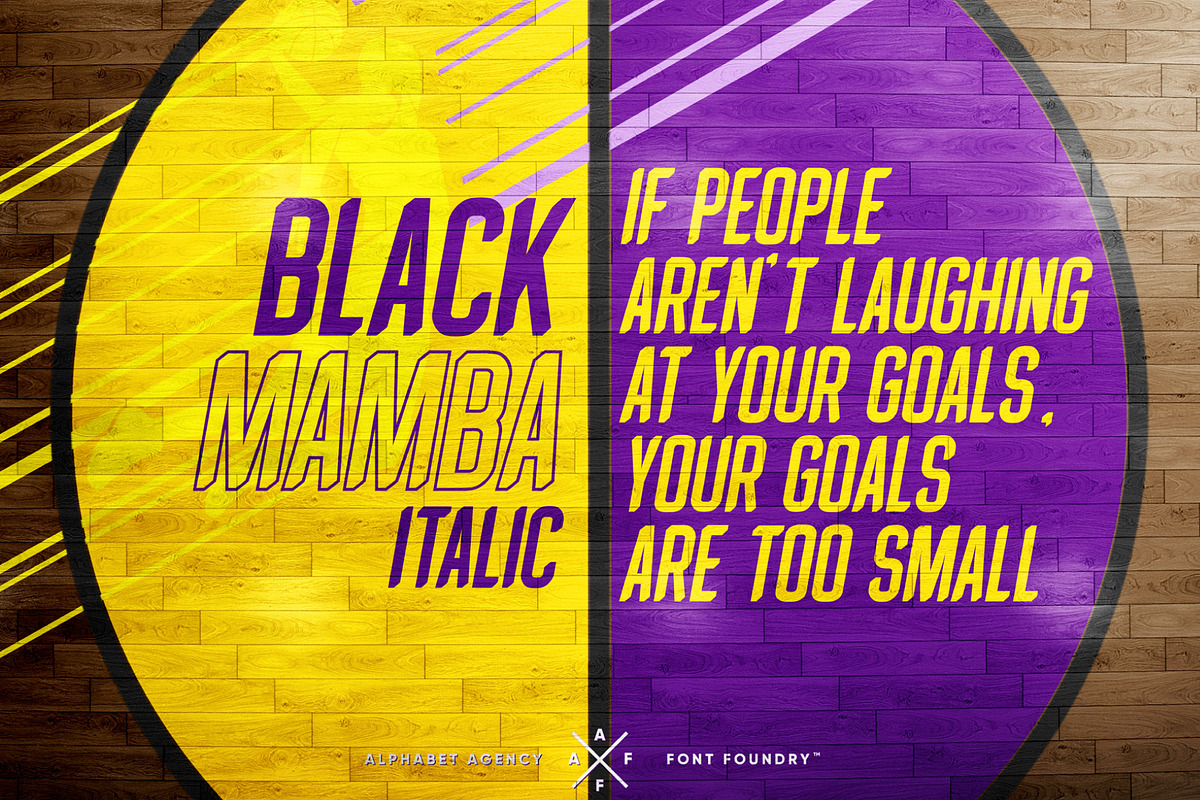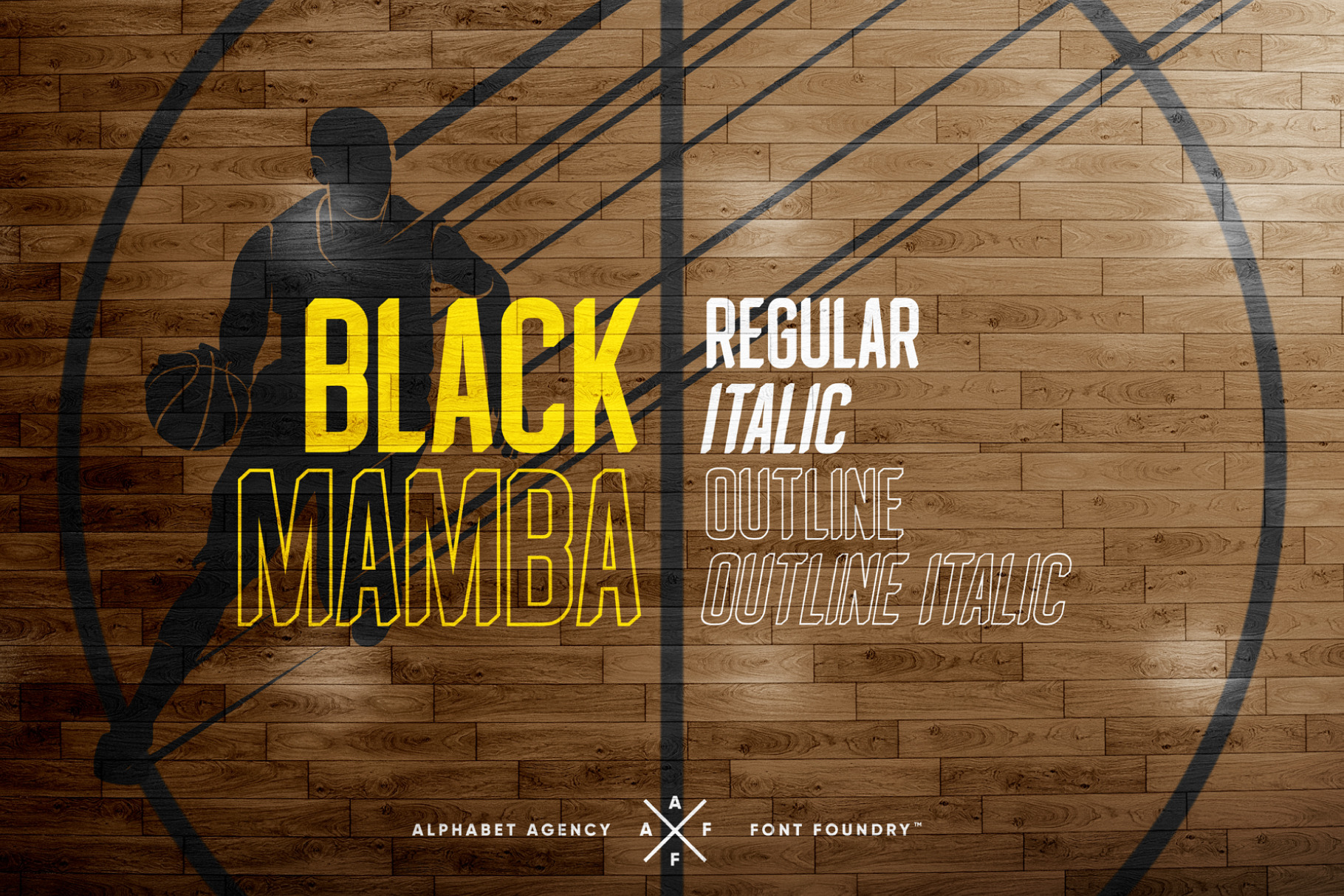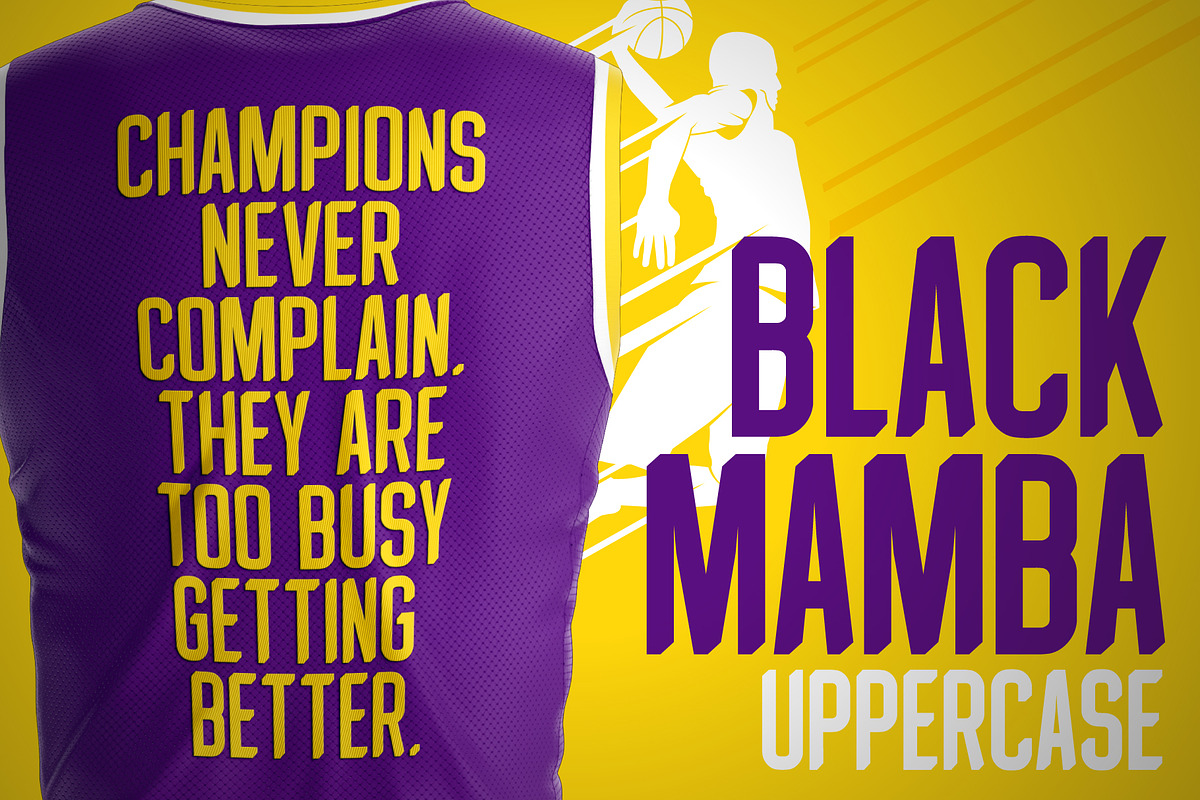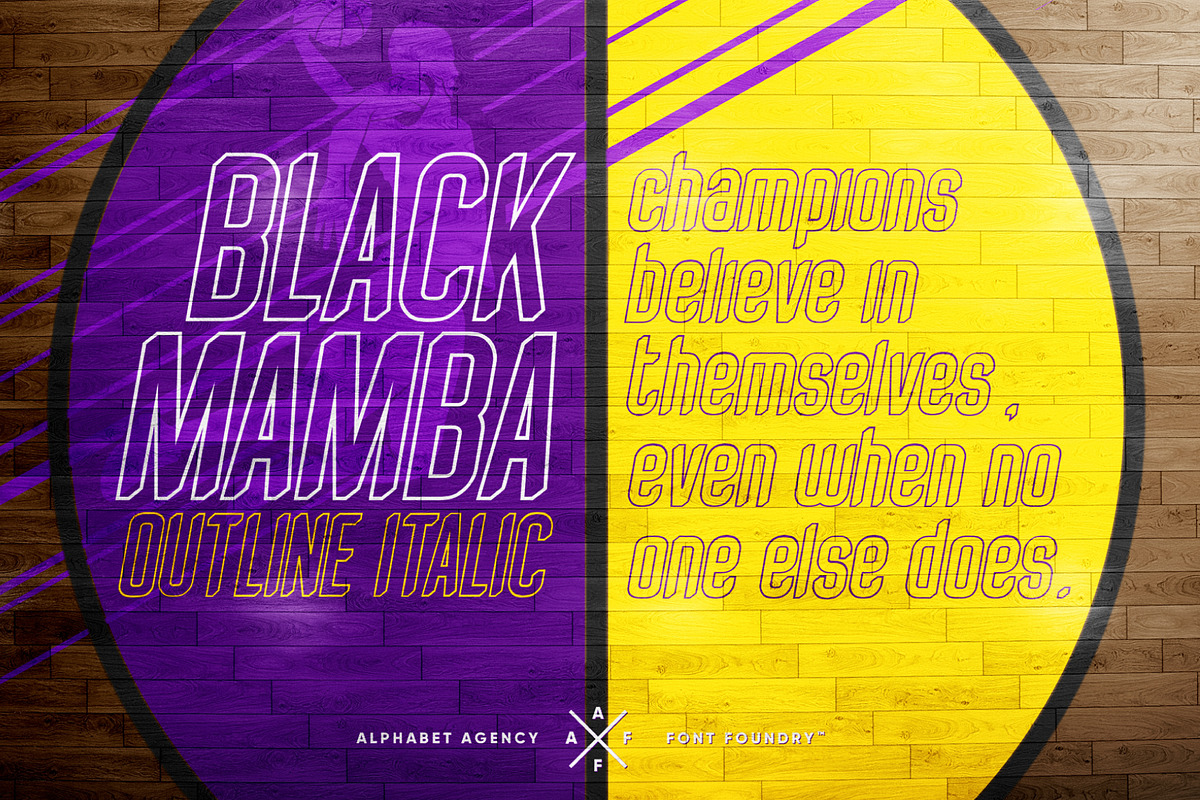
BLACK MAMBA FONT FAMILY
The Black Mamba Font Family contains 4 fonts:
Black Mamba Condensed Regular
Black Mamba Condensed Italic
Black Mamba Outline Condensed Regular
Black Mamba Outline Condensed Italic
Each font contains international Latin, numbers and punctuation characters.
The fonts were designed for sports related themes.
The font is named in dedication to the memory of Kobe Bryant.